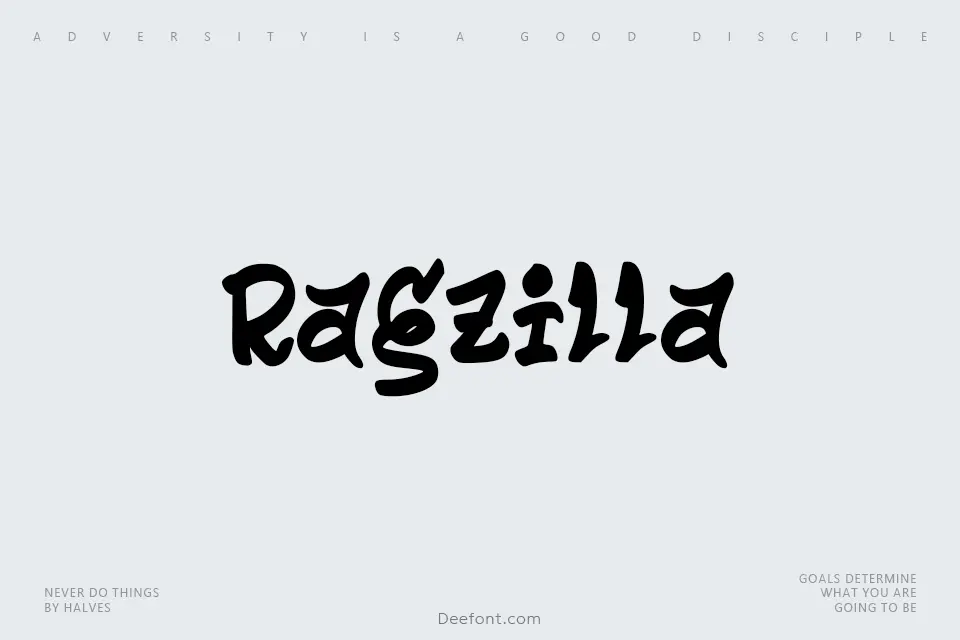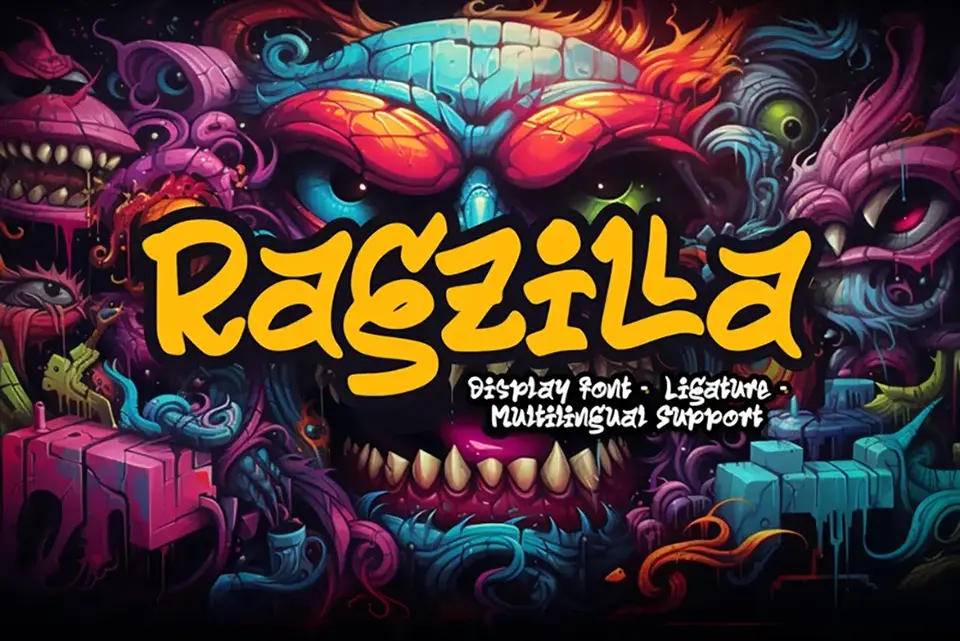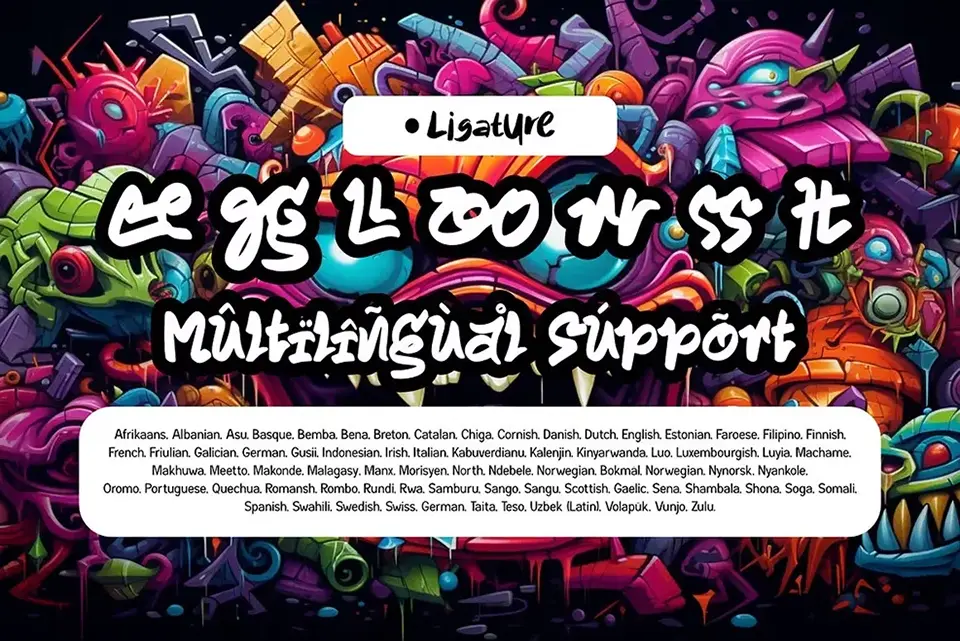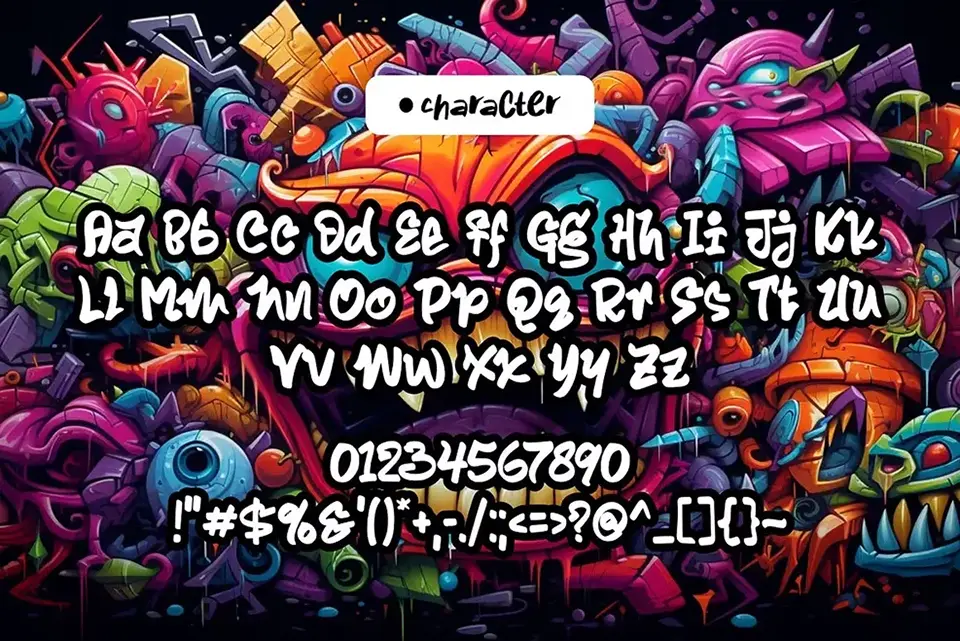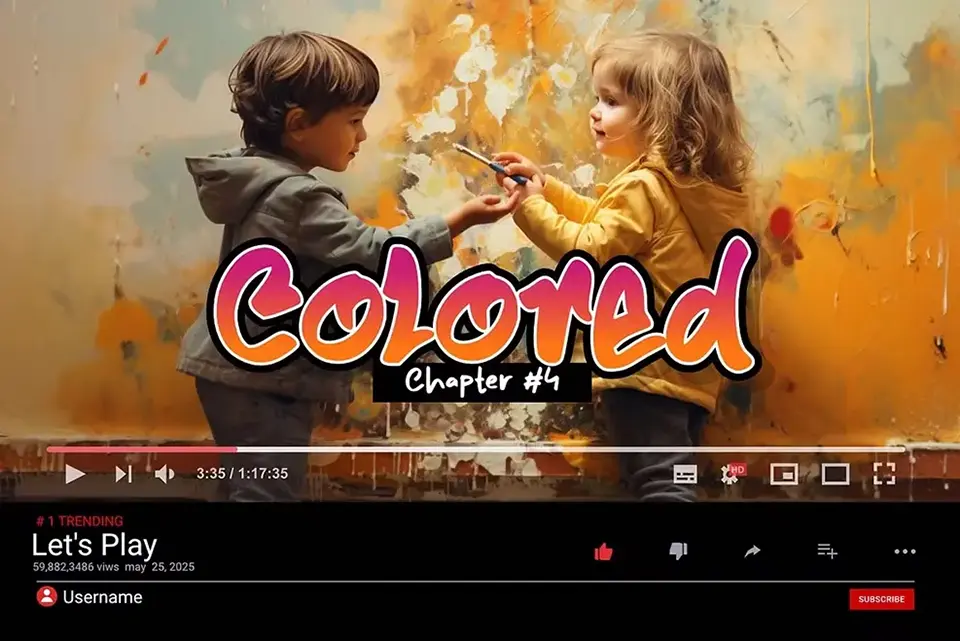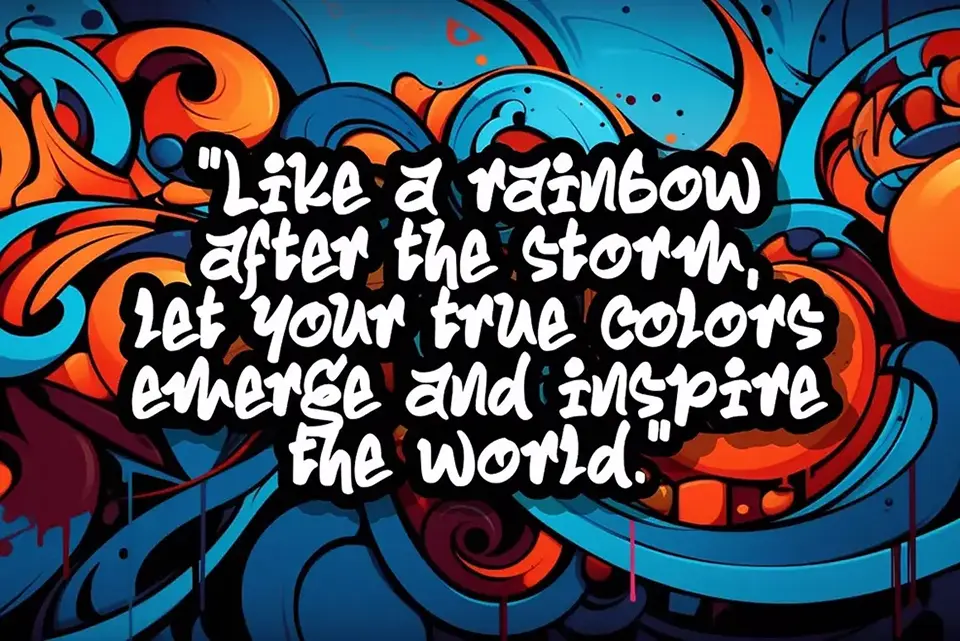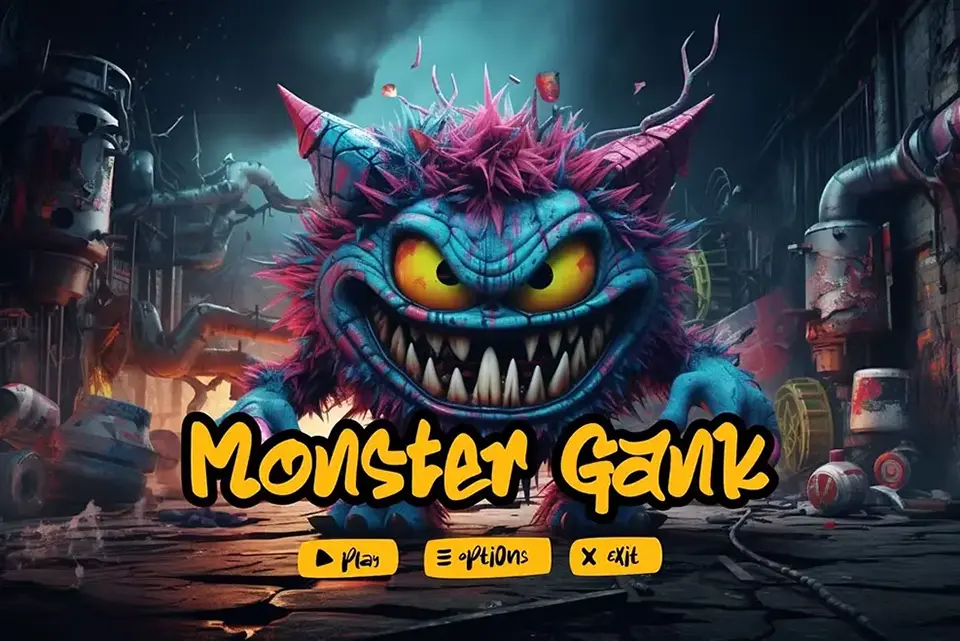
Ragzilla Font
Ragzilla is a bold, eye-catching display font with thick brush strokes inspired by graffiti art. Combining the daring energy of street graffiti, this font creates striking and expressive typography perfect for headlines, posters, logos, and creative projects. With strong brush work and sharp lines, Ragzilla delivers a wild, free-spirited character that embodies the spirit of urban design. Each letter features diverse styles from majestic uppercase to wavy lowercase, offering endless creative combinations for standout display designs.